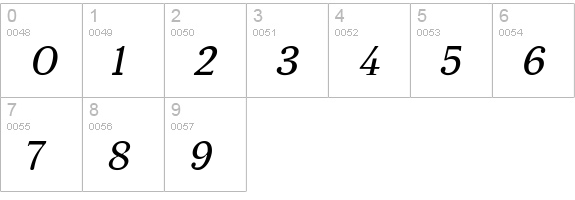
Serif6 Beta Italic Font Details
Serif6 Beta Italic is a distinctive, italic variant in the Serif6 typeface family \xE2\x80\x94 well suited to design and typography projects.
Serif6 Beta Italic font is a modern and elegant typeface designed for those seeking a unique and sophisticated touch to their projects. With its sleek and stylish italicized design, this font exudes a sense of creativity and professionalism. The Beta Italic variant of Serif6 offers a refined and polished look that is perfect for a wide range of design applications, from branding and advertising to editorial and web design. What makes this font even more appealing is that it is completely free to download. Yes, you read that right - Serif6 Beta Italic font is freely available for download at FontsMarket.com. Whether you're a professional designer looking to add a fresh new font to your collection or a hobbyist wanting to elevate your creative projects, Serif6 Beta Italic font is the perfect choice. Download it today and unleash your creativity with this stunning typeface!